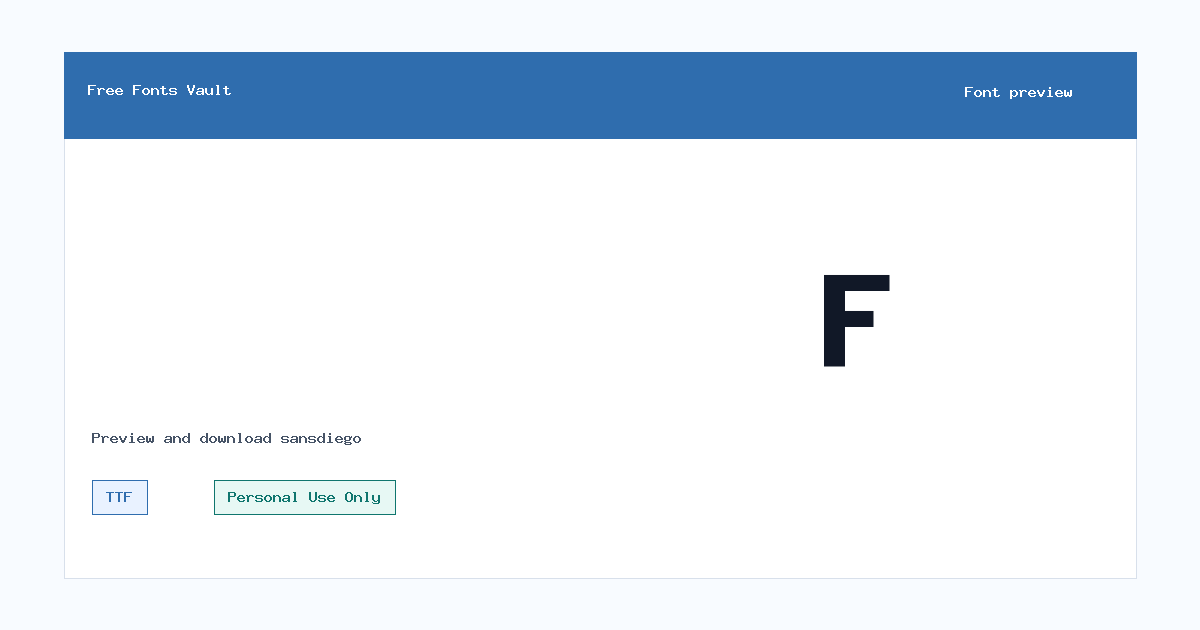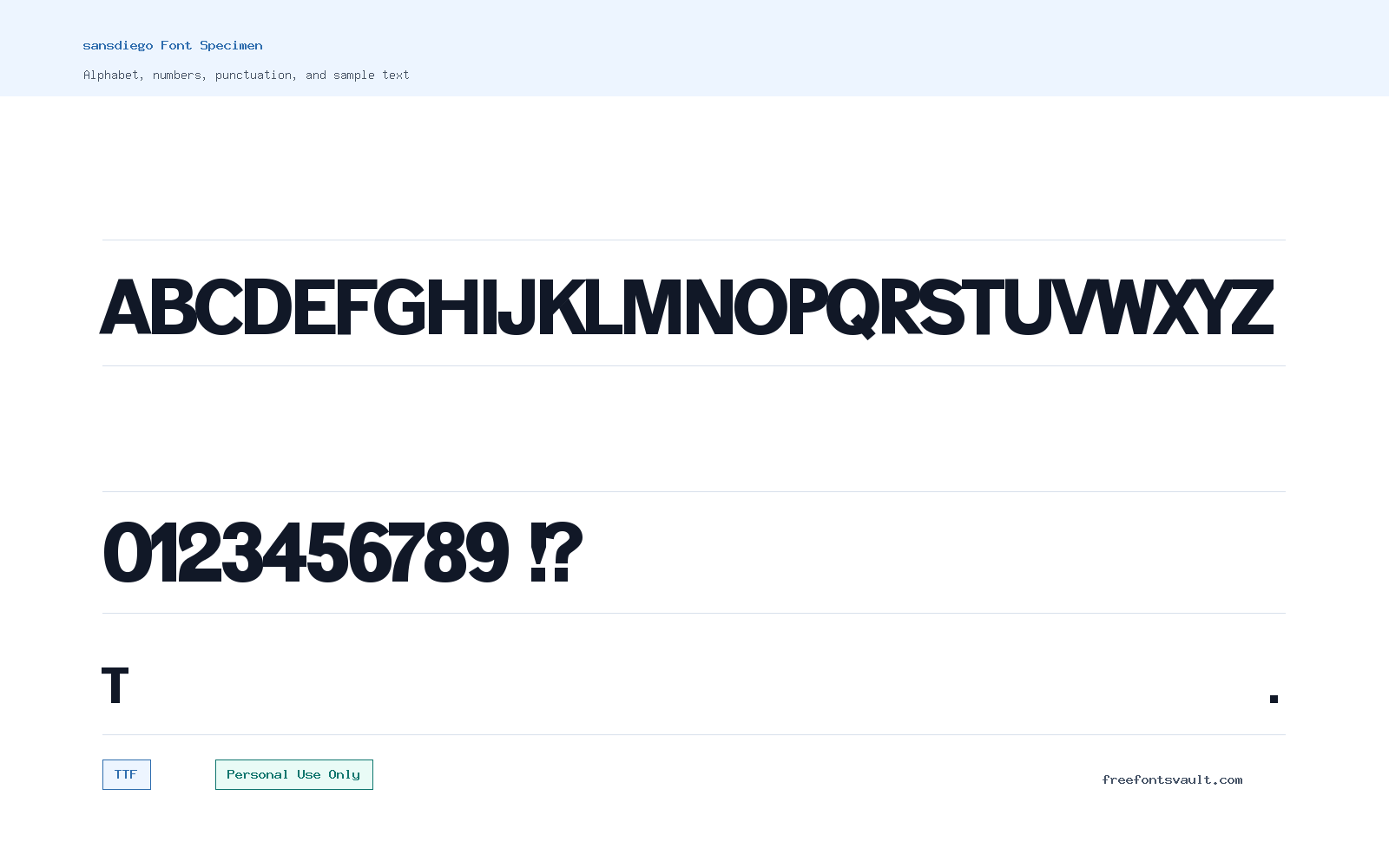
sansdiego
sansdiego font.
sansdiego is a bold sans serif display font with heavy uppercase letters, tight forms, and a clean modern look. It works best when you need short text to feel strong, simple, and easy to notice.
About sansdiego Font
sansdiego has the feel of a compact display sans serif rather than a long-reading text face. The letters are thick, mostly geometric, and built for impact. In preview, the uppercase alphabet carries the strongest personality: wide vertical strokes, rounded counters, and blunt endings give words a firm, blocky rhythm. The style is not decorative in the usual sense, but it is not a quiet body font either. It has enough weight to hold attention in a headline, poster title, logo draft, product label, or social graphic.
For logo work, sansdiego is most useful at the exploration stage: try it in all caps, test tight and loose letter spacing, and check how the heaviest letters behave at small sizes. The bold shapes can look confident in simple black-and-white layouts, but they may become crowded if the word is long or if the design already has many strong graphic elements. Short names, initials, single-word titles, and numeric marks are safer uses than long slogans.
For posters and web mockups, give the font room to breathe. It can carry a large headline above a lighter sans serif body font, or sit beside a serif text face for contrast. Avoid pairing it with another very heavy display font unless you want a deliberately loud layout. A neutral sans for navigation, captions, and paragraph text will usually make the design easier to read while letting sansdiego handle the visual emphasis.
- Bold uppercase sans serif style with strong display impact
- Includes uppercase letters, numerals, spaces, and common punctuation
- Best suited to short words, titles, logos, posters, and graphic mockups
- Logo concepts and wordmark drafts
- Poster headlines and event titles
- Website hero headings and landing page mockups
- Social media graphics and thumbnails
- Labels, badges, stickers, and packaging experiments
- Short uppercase typography where a heavy sans serif look is needed
Use sansdiego where the message is short and the type can be large. Test your exact words in the preview, especially if you need lowercase letters, accented characters, or extended punctuation. For finished layouts, pair it with a readable body font and keep enough spacing around heavy words so the design does not feel cramped.
What kind of font is sansdiego?
sansdiego is a bold sans serif display font. It is better for short, attention-grabbing text than for paragraphs or long reading.
Does sansdiego include lowercase letters?
The tested character set is uppercase-focused and does not include a full lowercase alphabet. Type your text in the preview to make sure every character you need is supported.
What font should I pair with sansdiego?
Pair it with a simple, readable sans serif for body text, captions, menus, and longer descriptions. A restrained serif can also work if you want contrast between a bold title and calmer supporting copy.
Is sansdiego good for website text?
It can work well for large hero headings or short display text in a web mockup. It is not ideal for paragraphs, small UI labels, or long blocks of text.